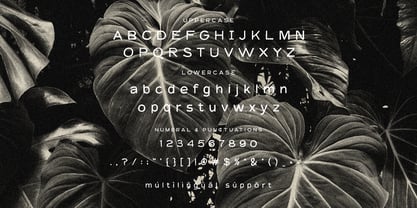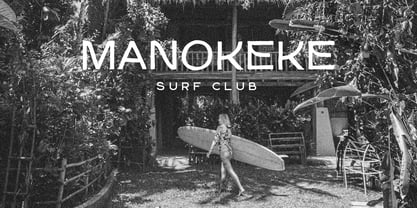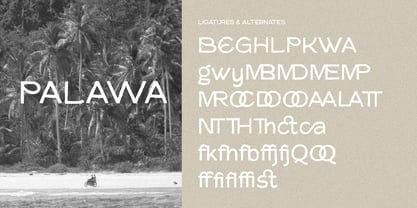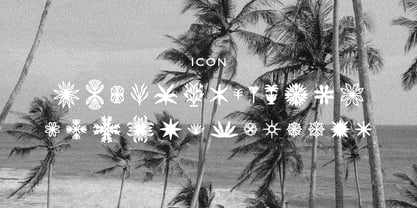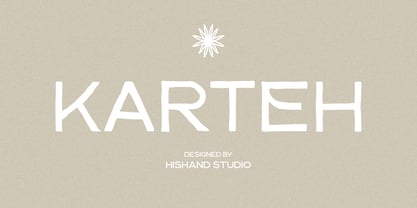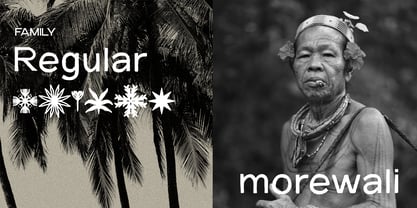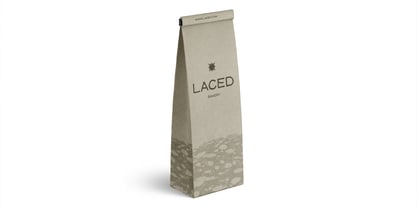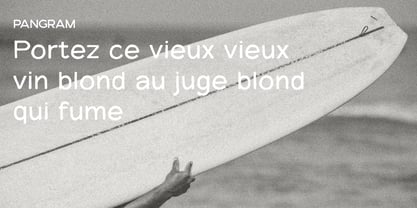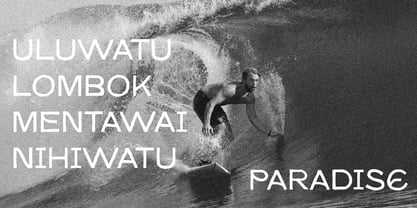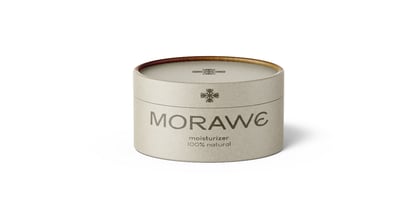
Karteh
por Hishand Studio
La familia tipográfica Karteh fue diseñada por Putu Dody Permana y publicada por Hishand Studio. Karteh contiene 2 estilos y opciones de paquete familiar. Más información sobre esta familia
Karteh is a hand-drawn sans serif font that blends playful character with clean, modern readability. Designed to feel organic and human, Karteh carries subtle imperfections that give each letter a warm, artistic presence perfect for projects that want to feel expressive without losing clarity. Its balanced proportions and relaxed strokes make it easy to read while still standing out with a distinctive, handcrafted voice. Complementing the letter set, Karteh includes 26 aesthetic icons that follow the same hand-drawn style. These icons integrate seamlessly with the font, making it simple to build cohesive designs without switching assets. From branding and packaging to posters, social media graphics, and editorial layouts, Karteh adapts beautifully across both digital and print use. Karteh offers a consistent hand-drawn style with a natural feel, making designs look thoughtful, cohesive, and approachable. Complete with - ligatures - alternates - regular - icon - kerning - multilingual support
Diseñadores: Putu Dody Permana
Fundición: Hishand Studio